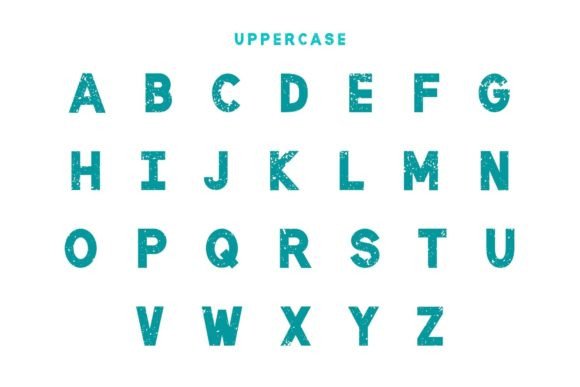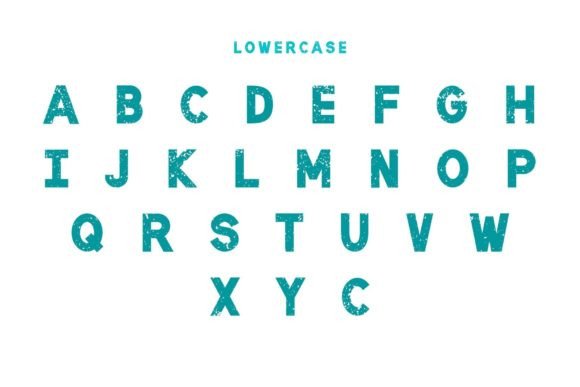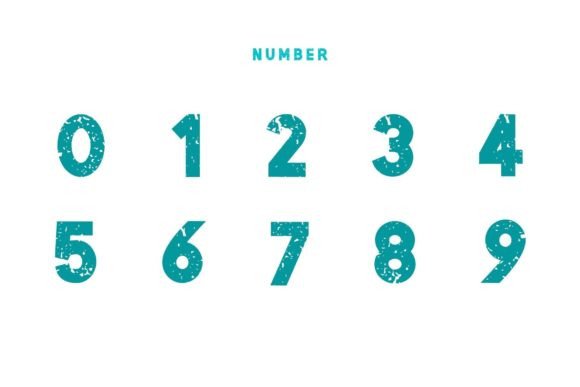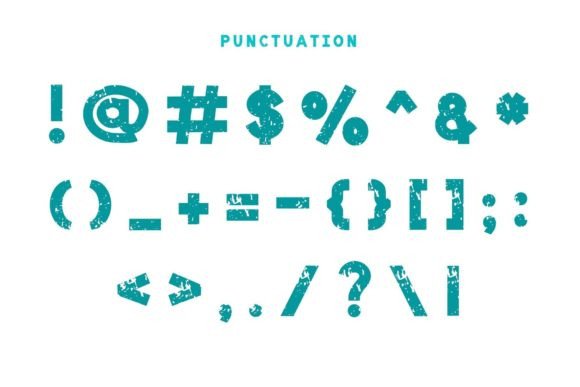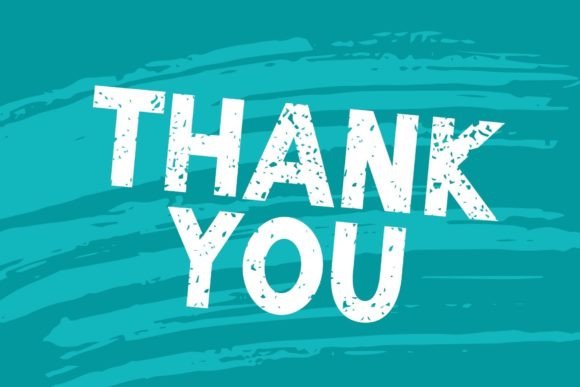
Introduction to Over Jump Font
Over Jump is a unique college grunge decorative font.
It embodies playfulness and authenticity and is the perfect choice for various projects such as blog posts, logos, branding, ads, invitations, greeting cards, planners, photo albums, decorations, and much more Add it to any of your designs, and enjoy the results.
Key Features of Over Jump Font
Why Choose Over Jump Font?